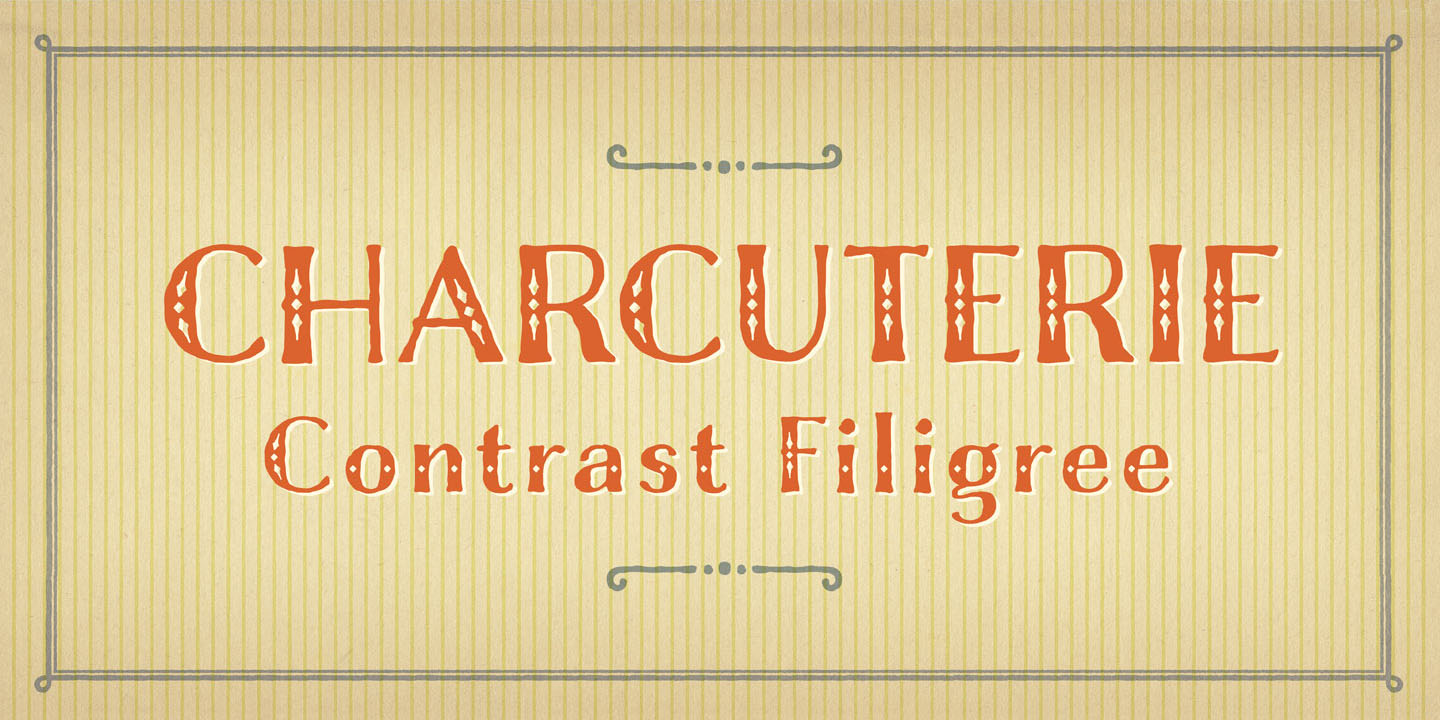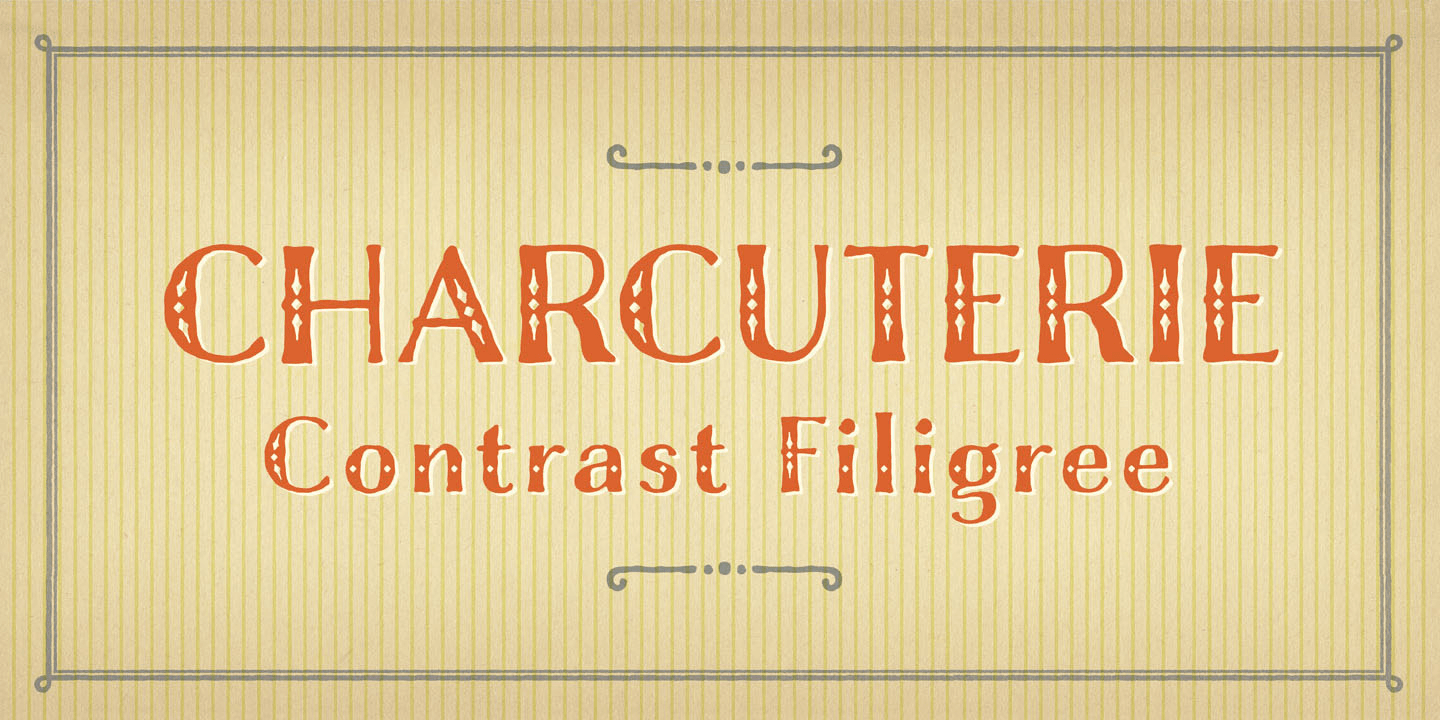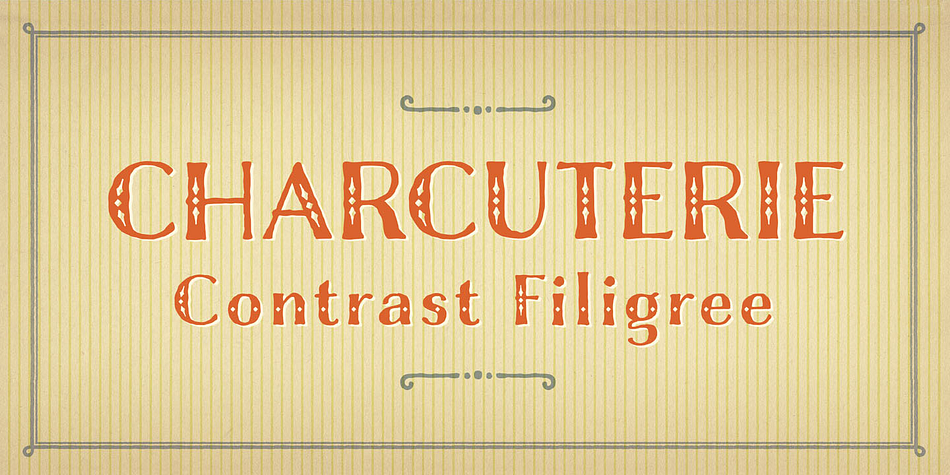
Charcuterie Filigree
Charcuterie Filigree is a western font published by Laura Worthington.
Charcuterie is an homage to the inventiveness, passion, and care of peasants who proudly handed down recipes through generations.
A large and rare undertaking, Charcuterie is a family of ten distinct yet related typefaces, many of which have their own font families, and three decorative/ornamental typefaces.
While most of the Charcuterie typefaces are outfitted with a standard character set, Charcuterie Engraved features 135 swash alternates and Charcuterie Cursive boasts 275.
Charcuterie Frames offers a broad and endless approach to creating frames of any width, height and style.
Featuring 60 corner elements and 20 top, bottom and side pieces along with a detailed User’s Guide on how to construct the frames.
Charcuterie Catchwords features nine different styles for a total of 82 glyphs.
Charcuterie Ornaments is very practical and features 100 glyphs a vast array of arrows, brackets, rules, icons, ribbons and more.
This ambitious, yet accessible, set offers a virtually endless series of combinations, allowing each designer to form a tasty platter of ingredients, one that is uniquely theirs, for each project.
A large and rare undertaking, Charcuterie is a family of ten distinct yet related typefaces, many of which have their own font families, and three decorative/ornamental typefaces.